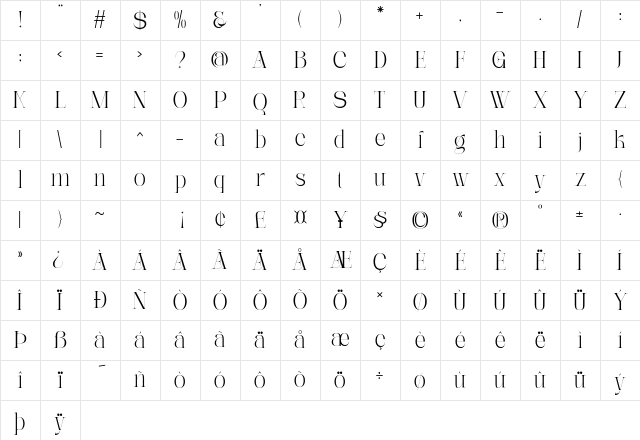
Artik - Demo Version Regular Free Font
Artik - Demo Version Regular
Foundry: Nirmana Visual
Designer: Sigit Dwipa Raharjo
Design Context for Artik - Demo Version
Artik - Demo Version is a composed and adaptable typeface that performs quietly and consistently across a wide range of design contexts.